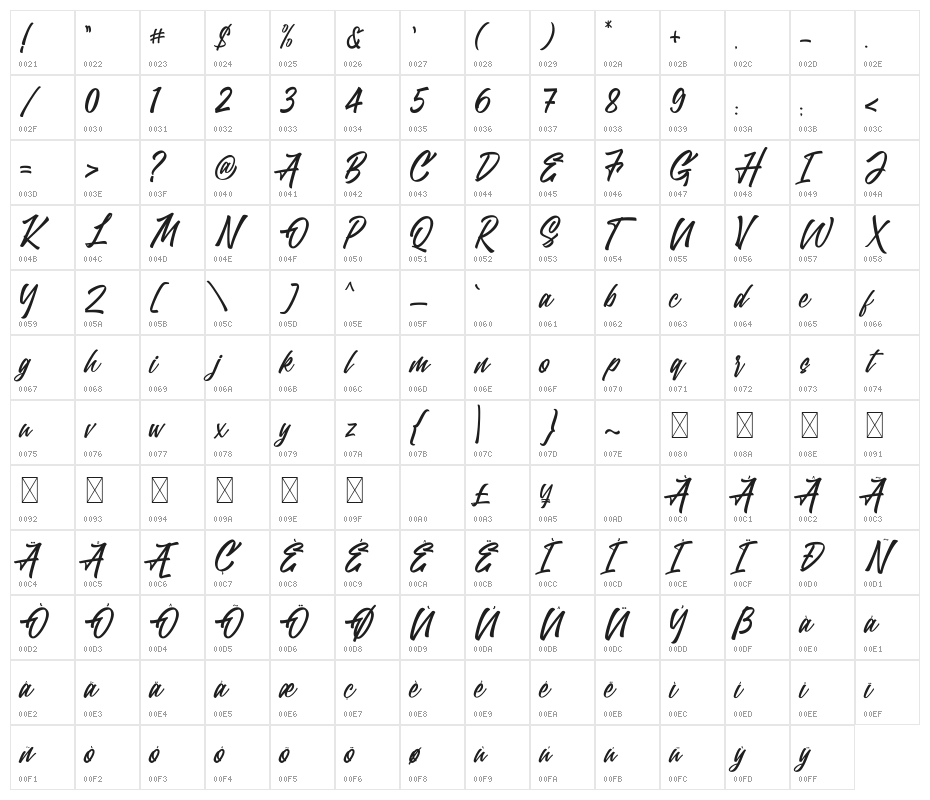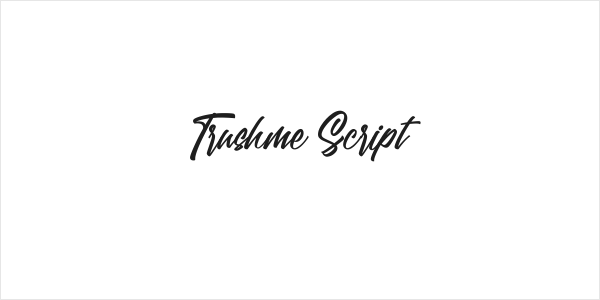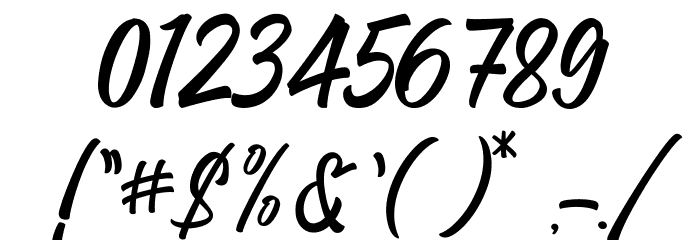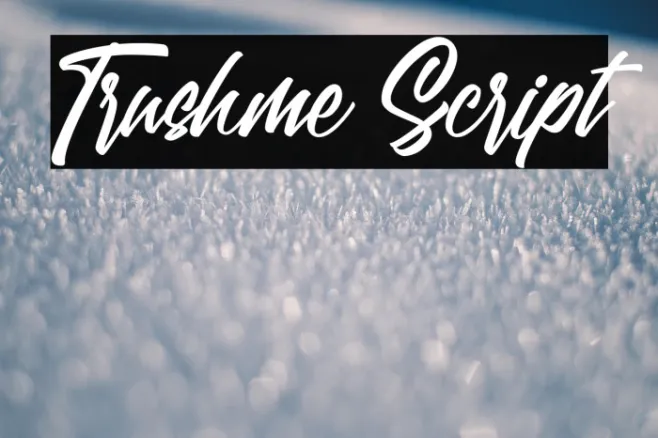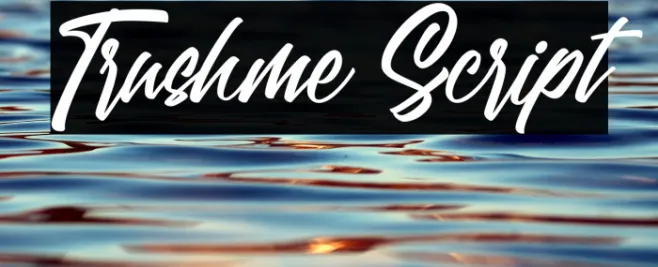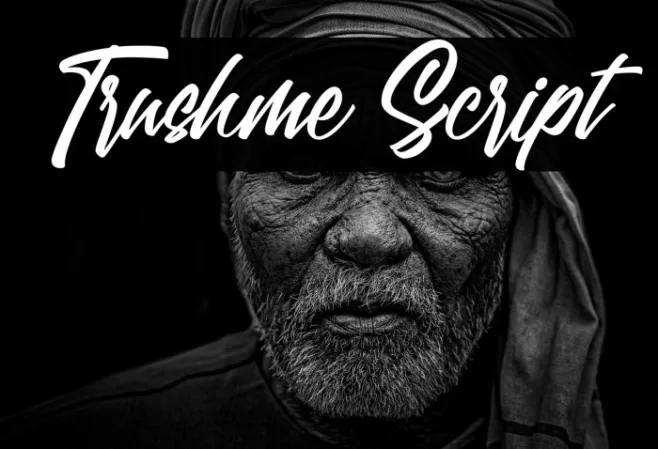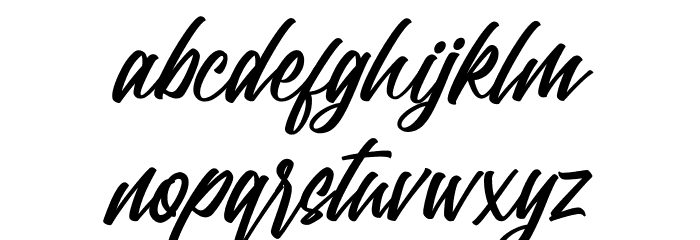
Trushme Script Font
Trushme Script Description
This font features a dynamic and flowing script style, characterized by its bold and expressive strokes. The letters are interconnected, creating a sense of movement and elegance. The uppercase letters are particularly striking, with sweeping curves and a sense of rhythm that adds to the font's overall appeal. The lowercase letters maintain this fluidity, ensuring consistency throughout. Numbers and special characters are designed with the same attention to detail, making them blend seamlessly with the alphabet. This font exudes a sense of creativity and flair, perfect for projects that require a touch of sophistication and style.
| Proposed Projects | Ideal for wedding invitations, branding, logos, and artistic projects that require a personal touch. |